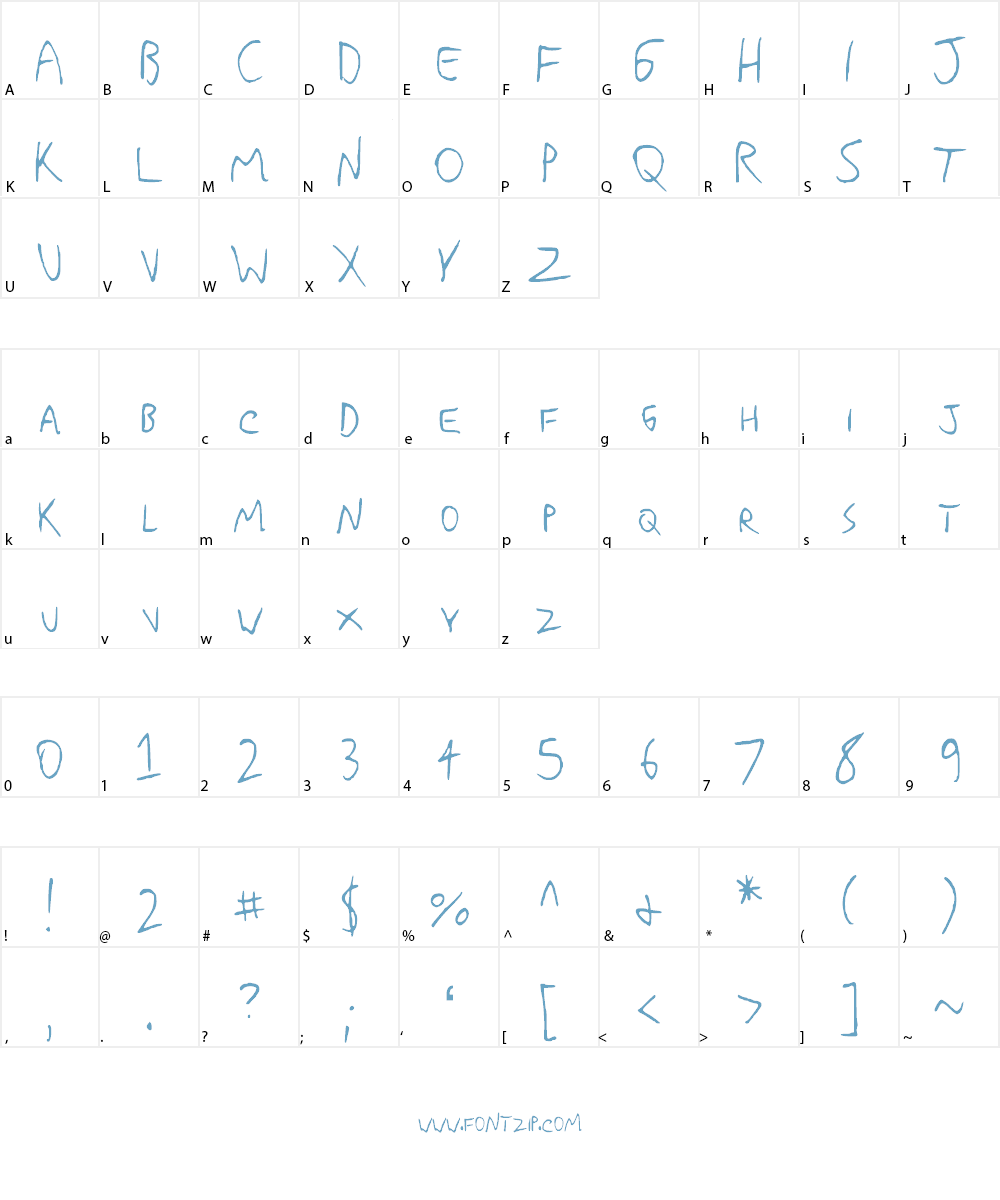
I started writing in smallcaps in middle school (after my teachers stopped caring about penmanship and cursive) One of the first things I wrote in my new handwriting was an unsent love letter.
(For those who don't know, middle school is 7th & 8th grades or approximately halfway between primary and secondary school)
CHANGES IN THIS VERSION:
-Added a few more common punctuation marks
-Cleaned up a few strokes
-Fixed baseline issue